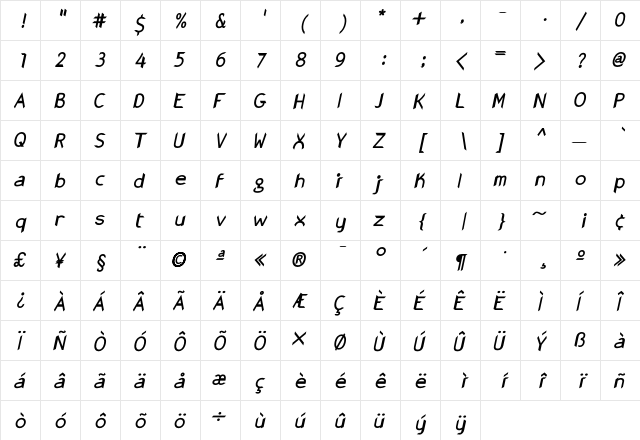
Gonza BoldOblique Font Preview
Gonza BoldOblique
Gonza BoldOblique Font Details
Design Context for Gonza Typeface
Gonza is a composed and adaptable typeface that performs quietly and consistently across a wide range of design contexts. The dynamic lean of this cut emphasises speed and emphasis in any layout. Its bold stroke weight gives it real presence on the page.
Pro Tip: Use Gonza for emphasis, pull quotes, and subheadings where its slanted energy can add rhythm to the layout.